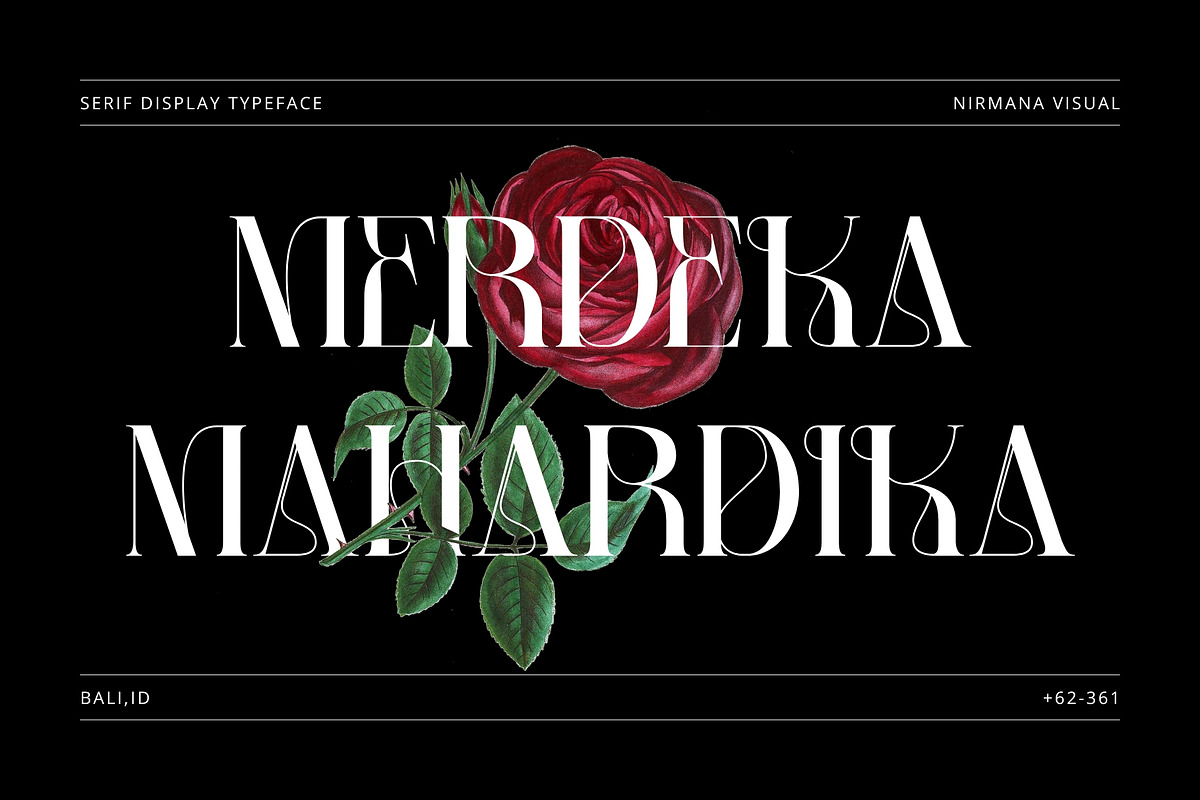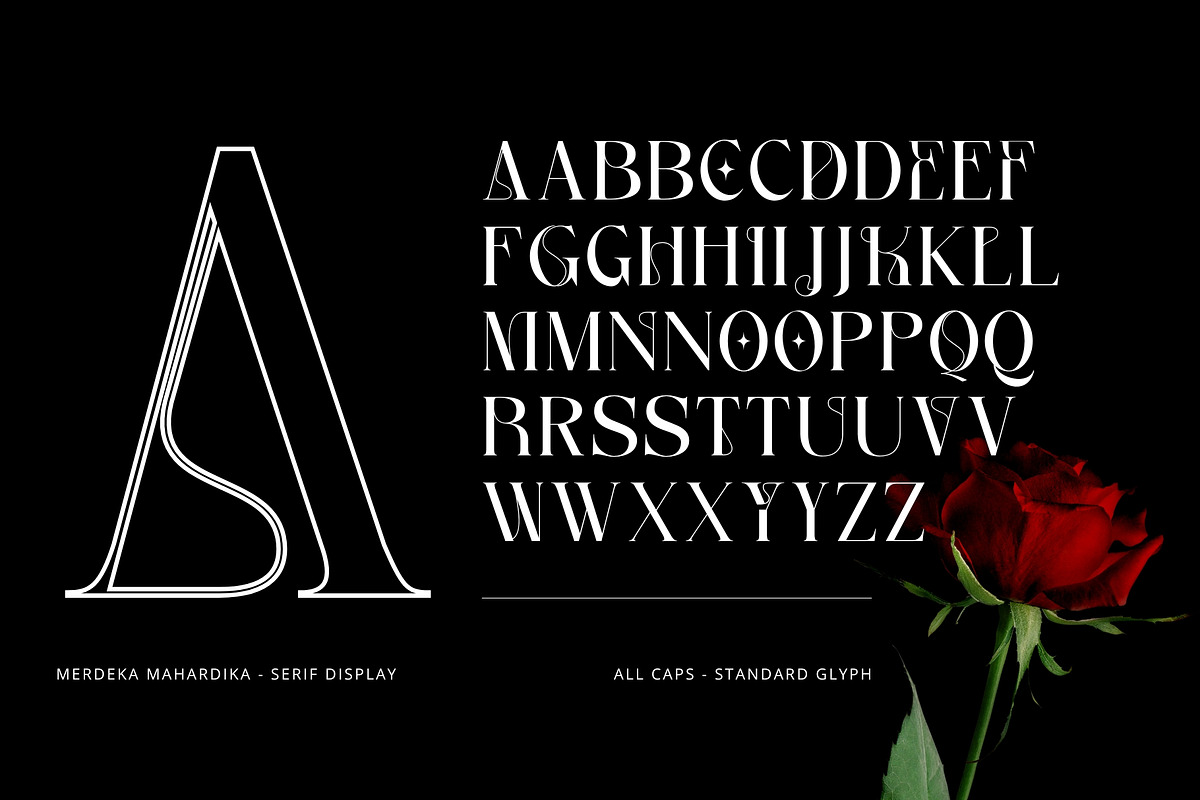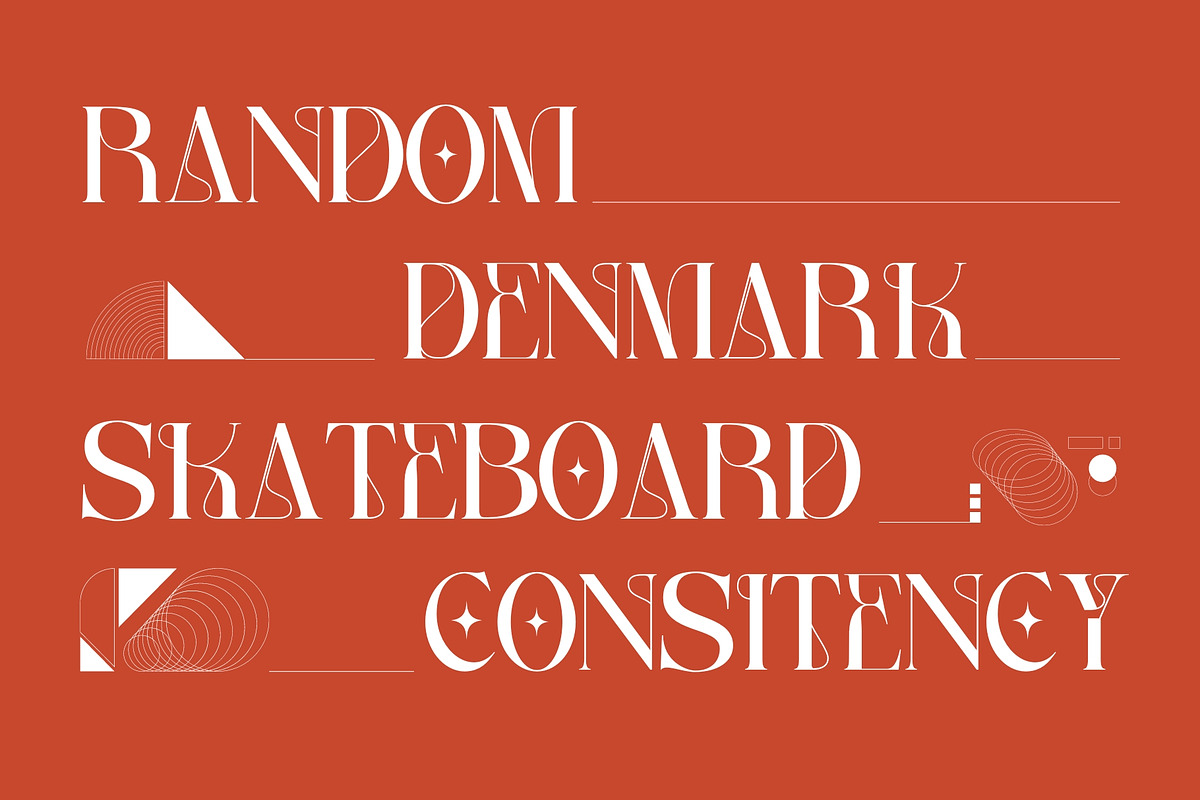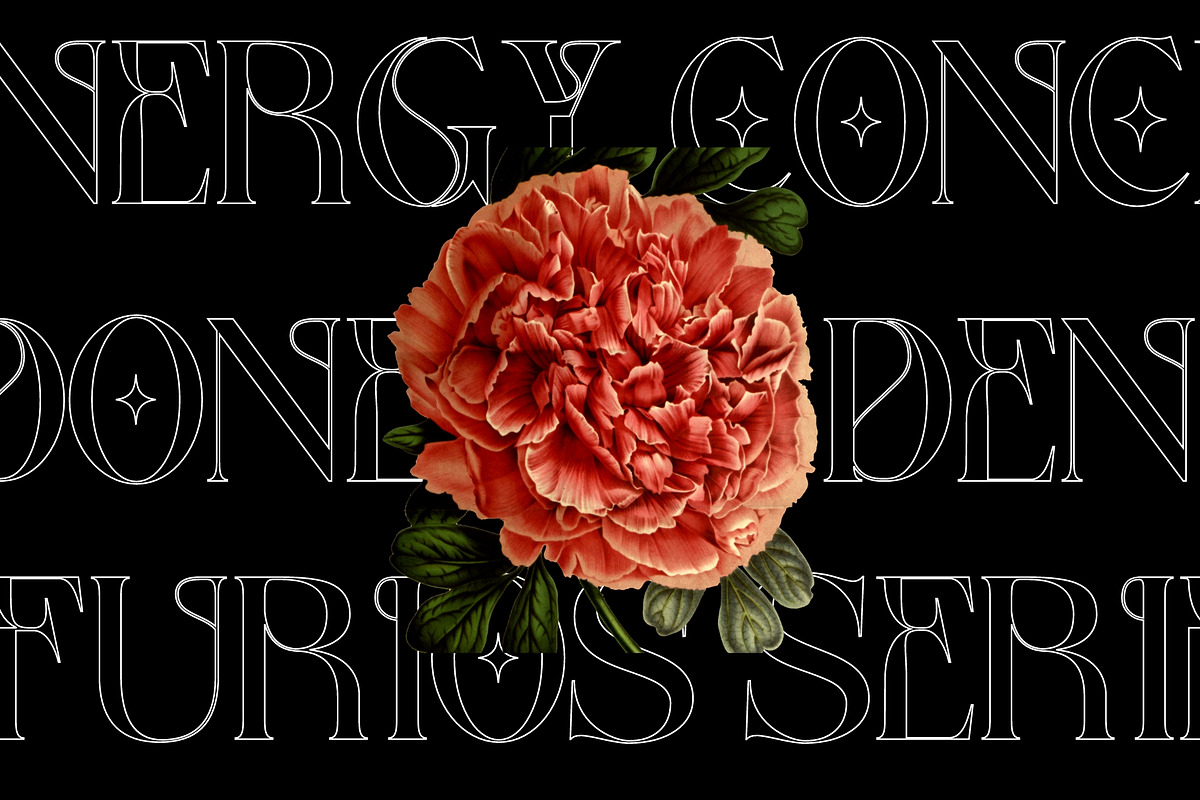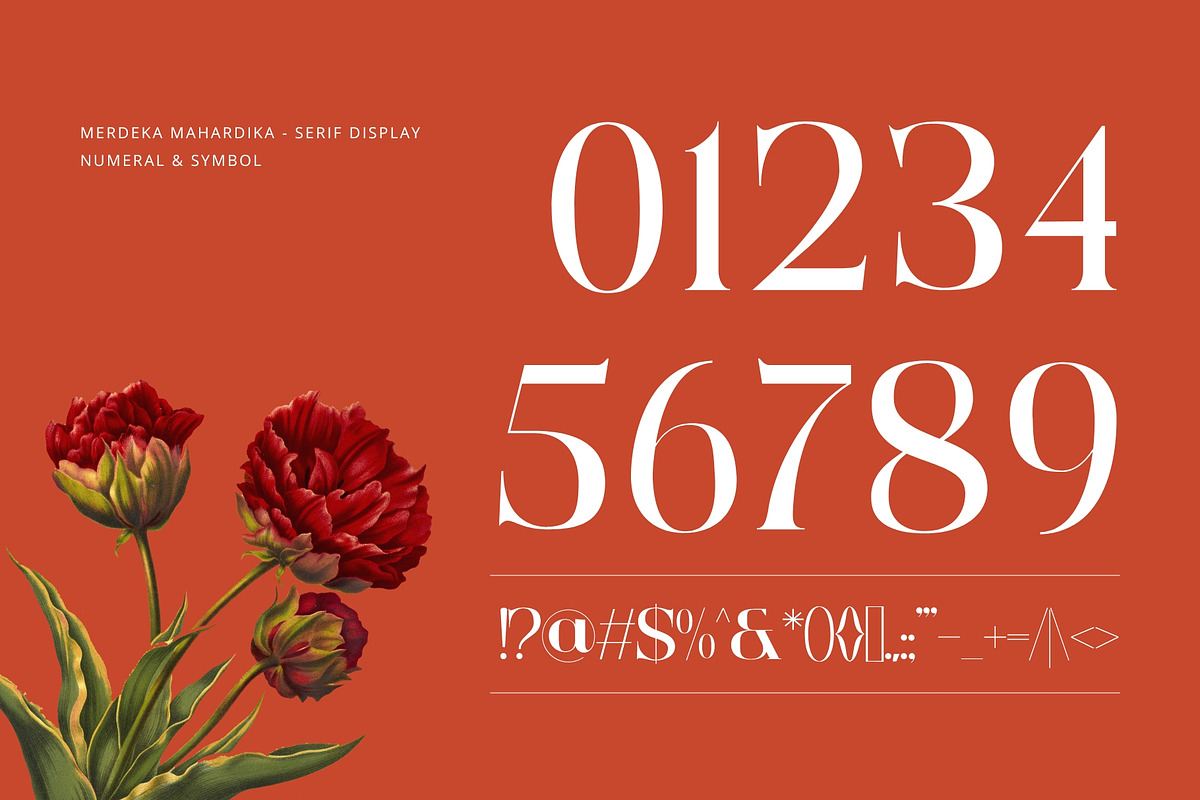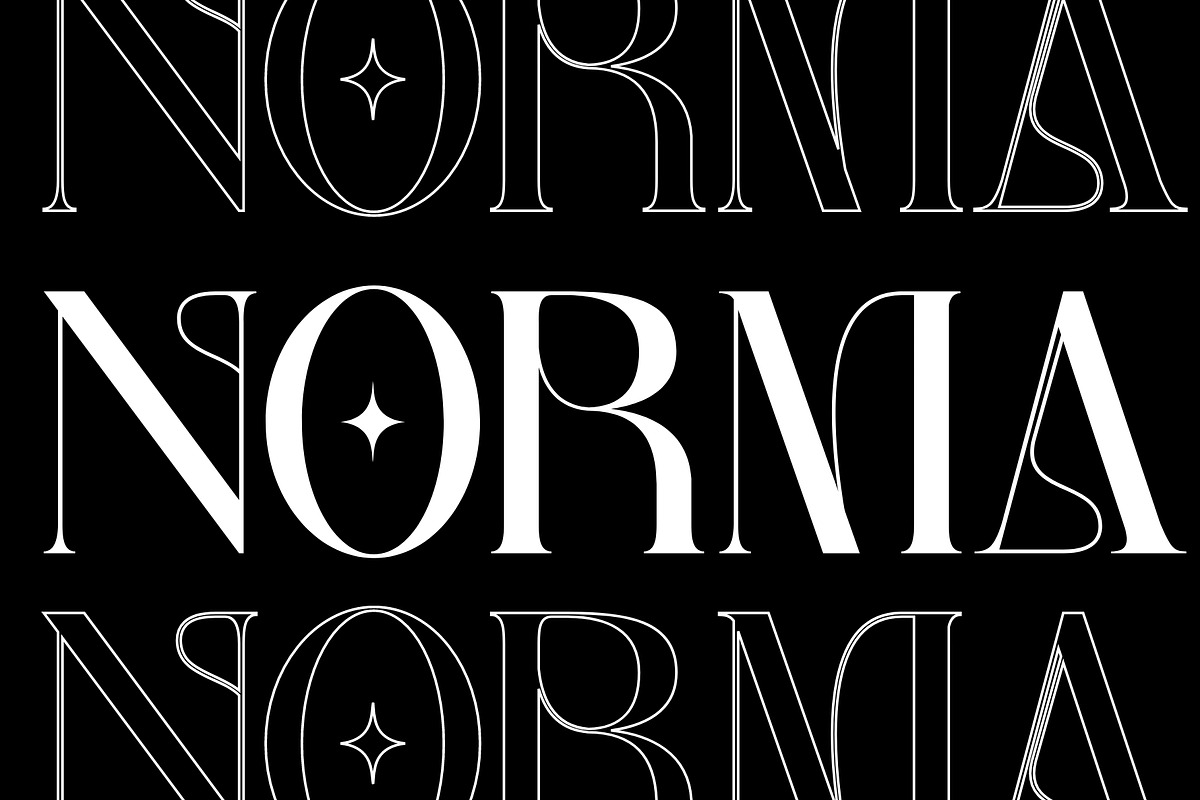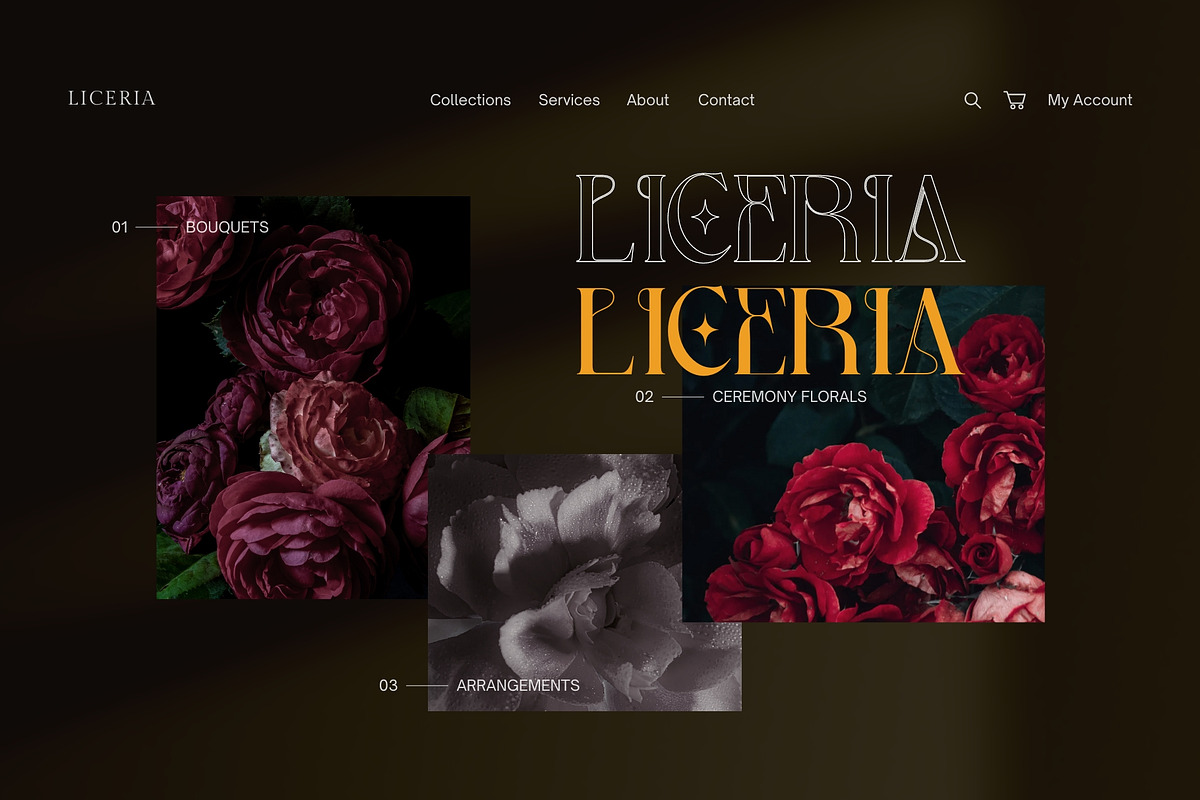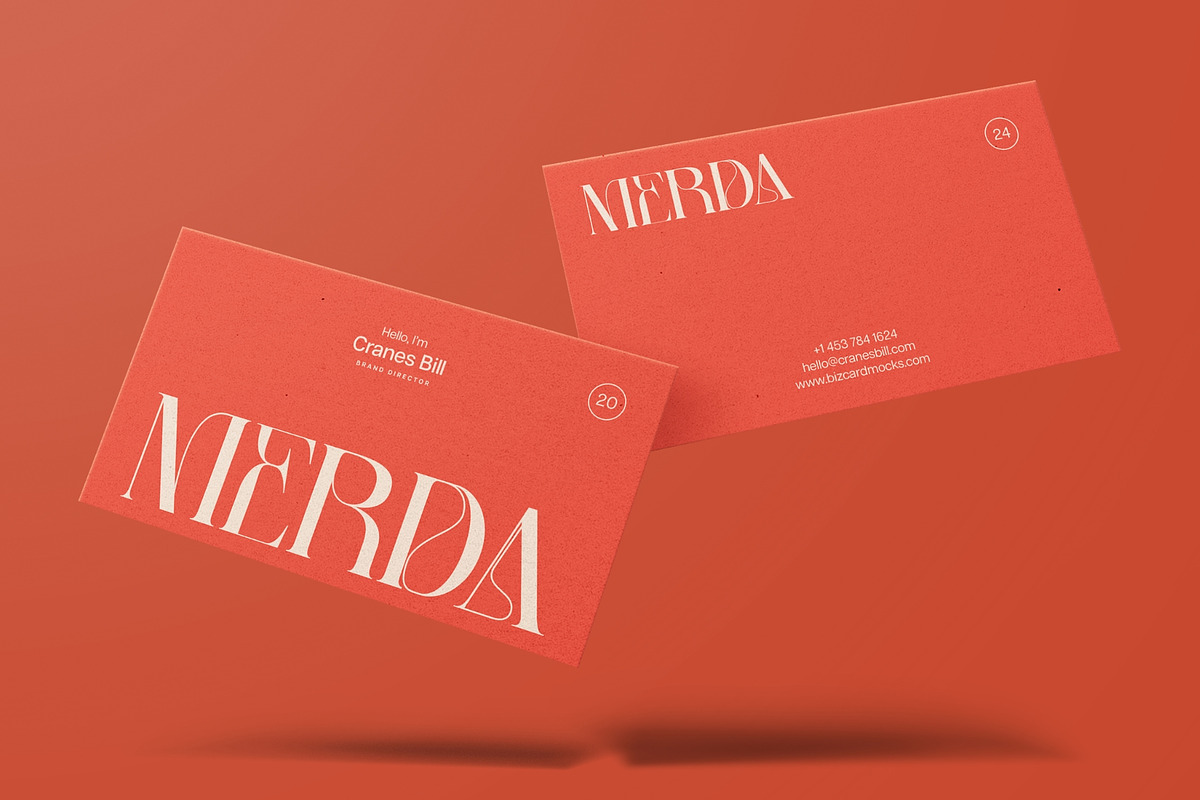
Merdeka Mahardika - Logo Serif Font
Merdeka Mahardika offers beautiful typographic harmony for a diversity of design projects, including logos & branding, social media posts, advertisements & product designs.